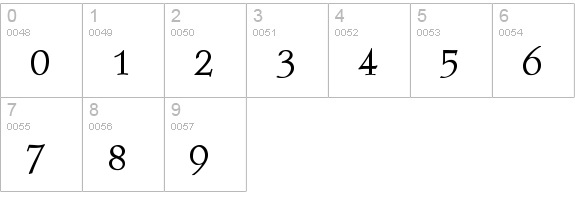
Post-Mediaeval BQ Regular Font Details
Post-Mediaeval BQ Regular is the standard, neutral variant in the Post typeface family \xE2\x80\x94 well suited to general body text, paragraphs, and standard typographic work.
Post-Mediaeval BQ Regular is a classic yet modern font that combines traditional elements with a contemporary twist. This versatile typeface is perfect for a wide range of design projects, from elegant branding to sophisticated editorial layouts. Its clean lines and balanced proportions make it both easy to read and visually pleasing. What sets Post-Mediaeval BQ Regular apart is its timeless appeal and ability to convey a sense of history while remaining relevant in today's design landscape. Whether you're working on a website, packaging, or print materials, this font will add a touch of sophistication to your work. Best of all, Post-Mediaeval BQ Regular is available for free download at FontsMarket.com. This means you can start using this high-quality font in your projects without any cost barriers. Don't miss out on the opportunity to enhance your designs with the elegance and charm of Post-Mediaeval BQ Regular. Download it today and elevate your typography game!